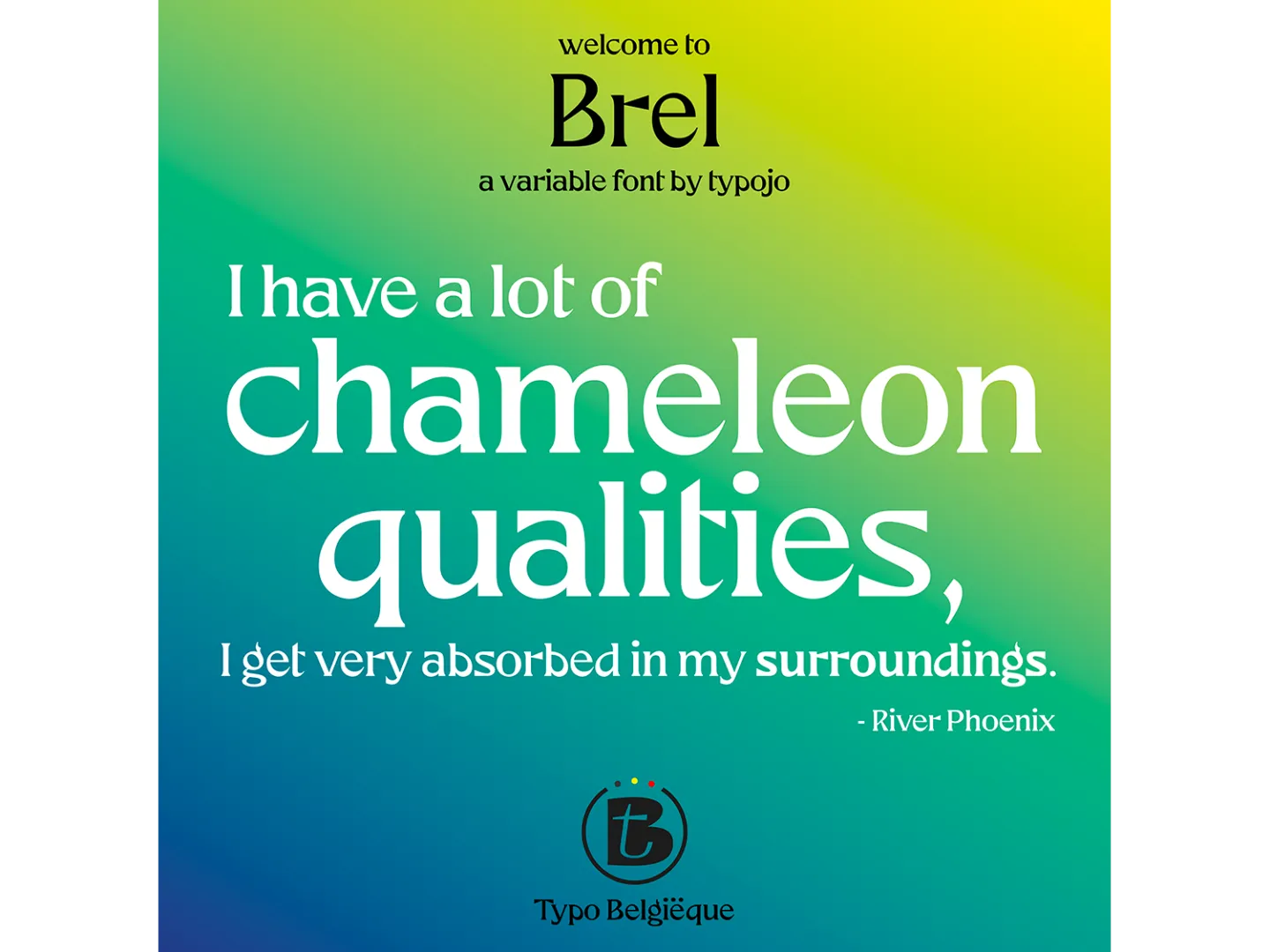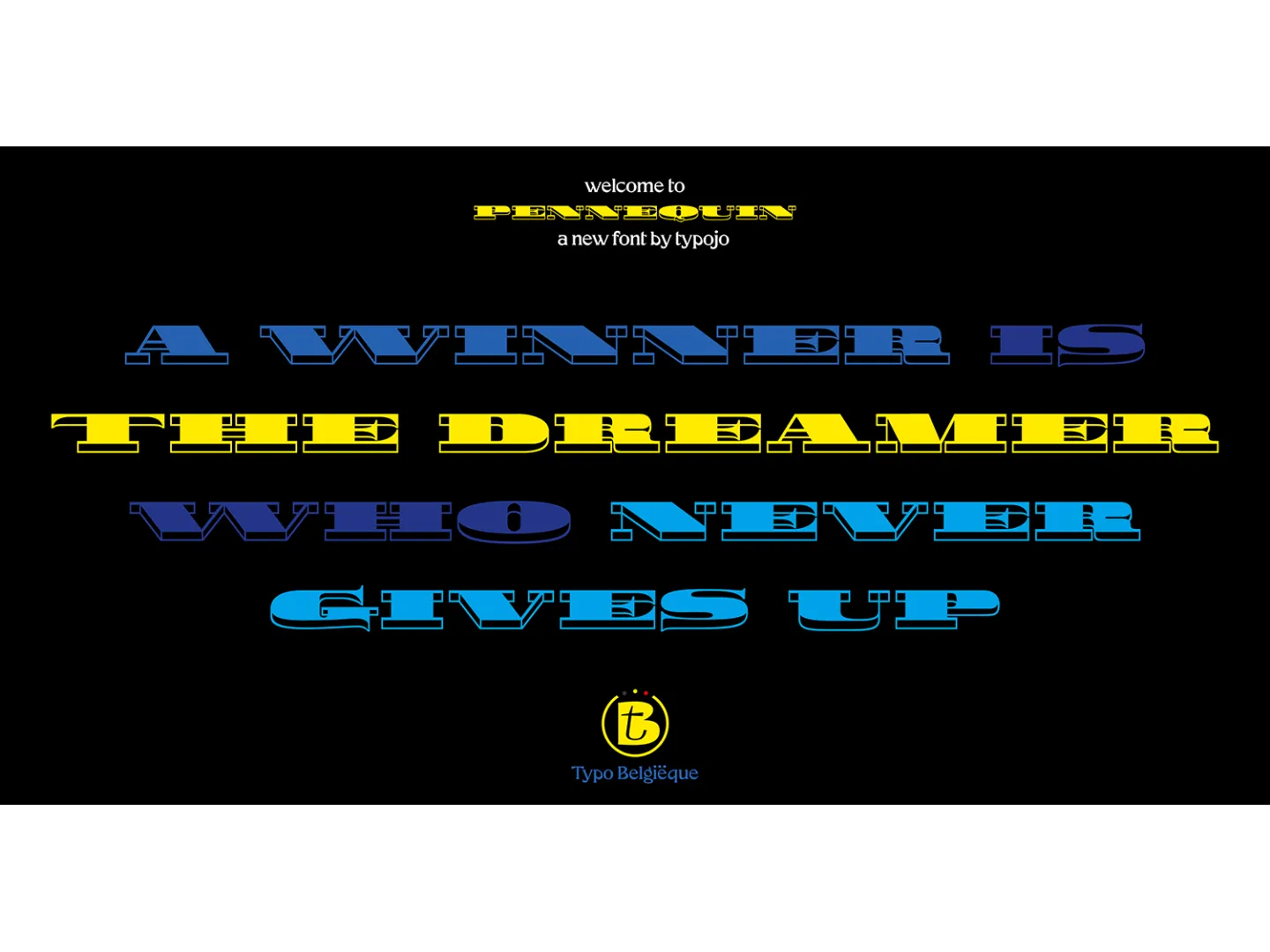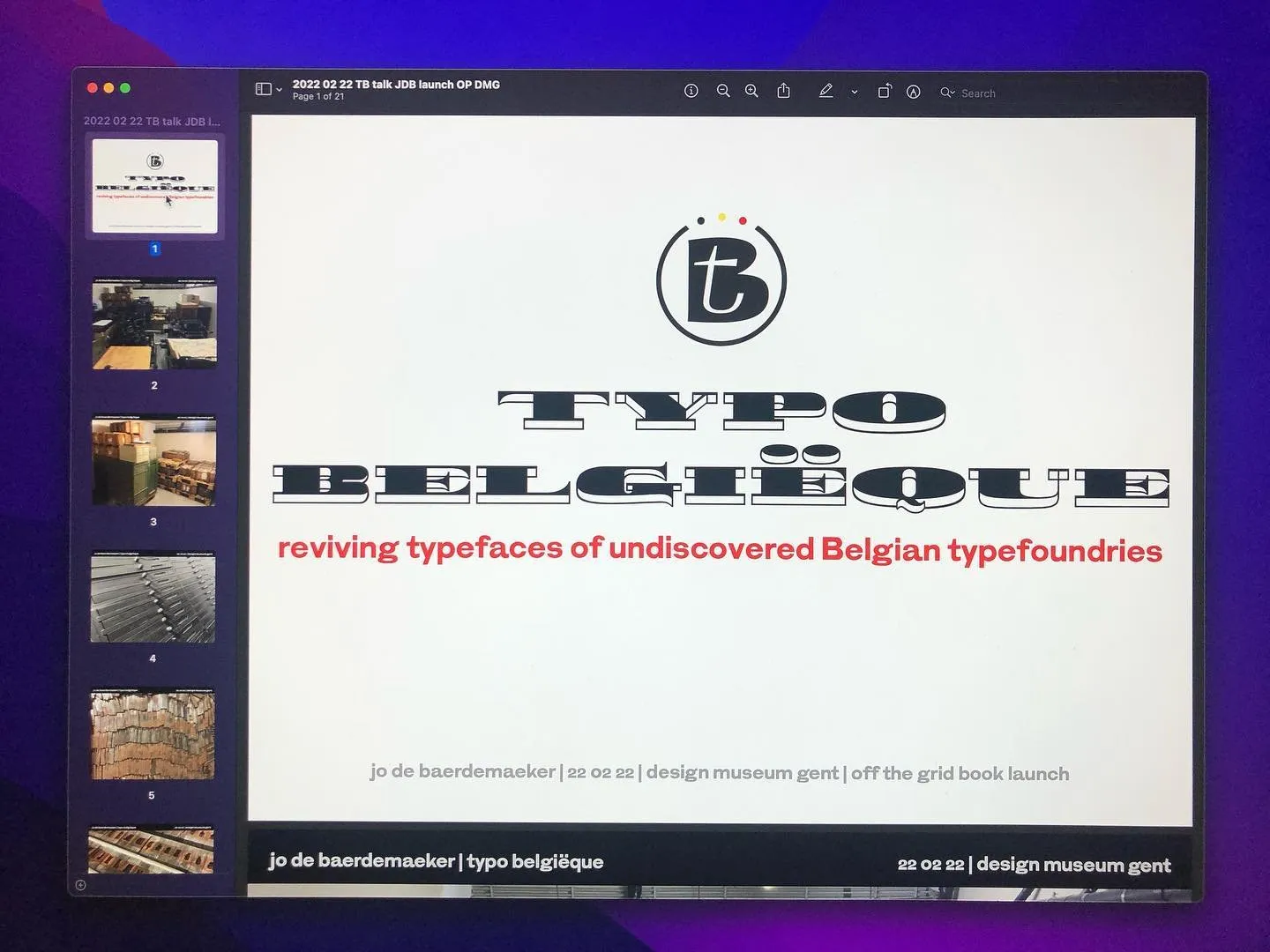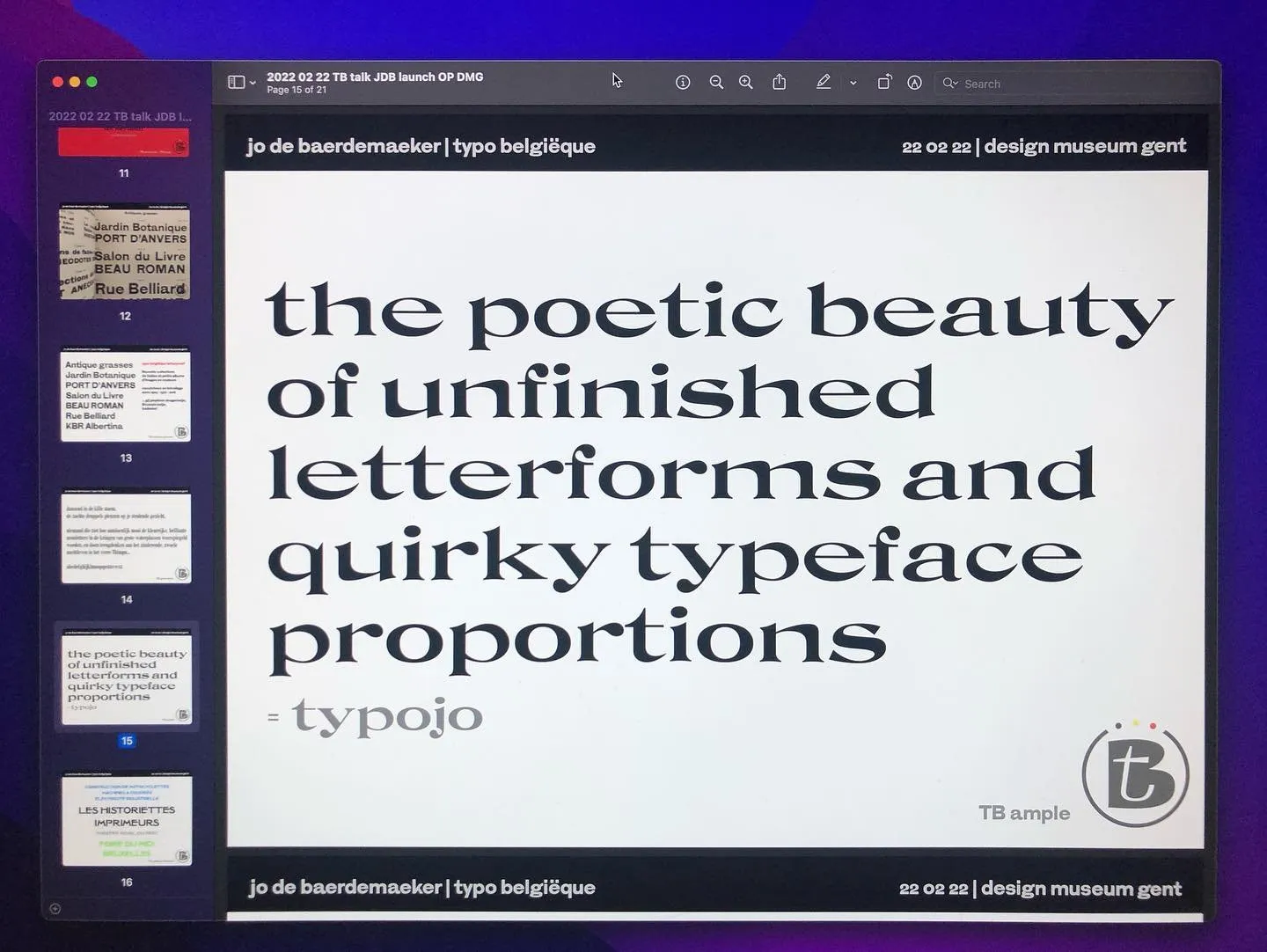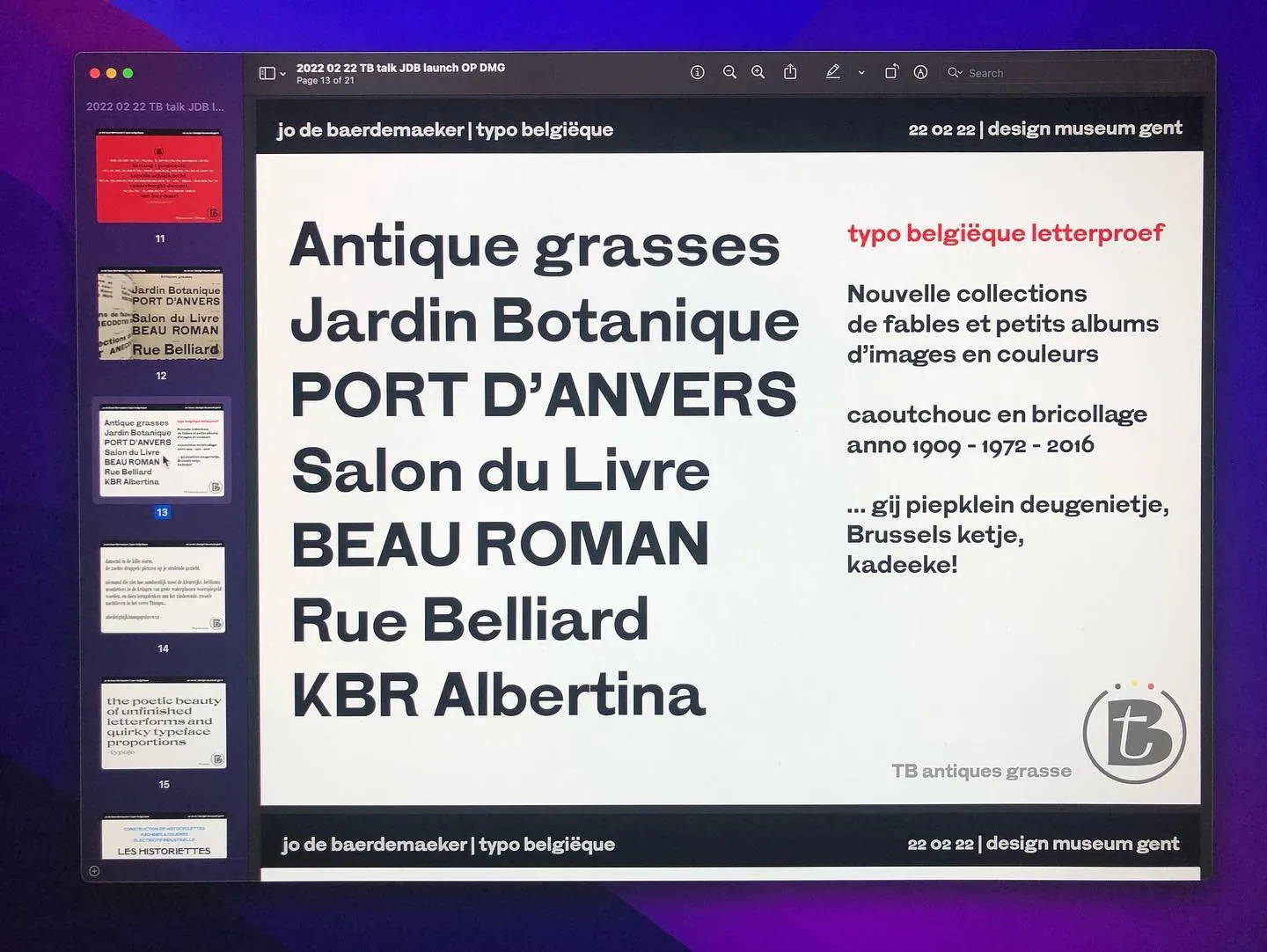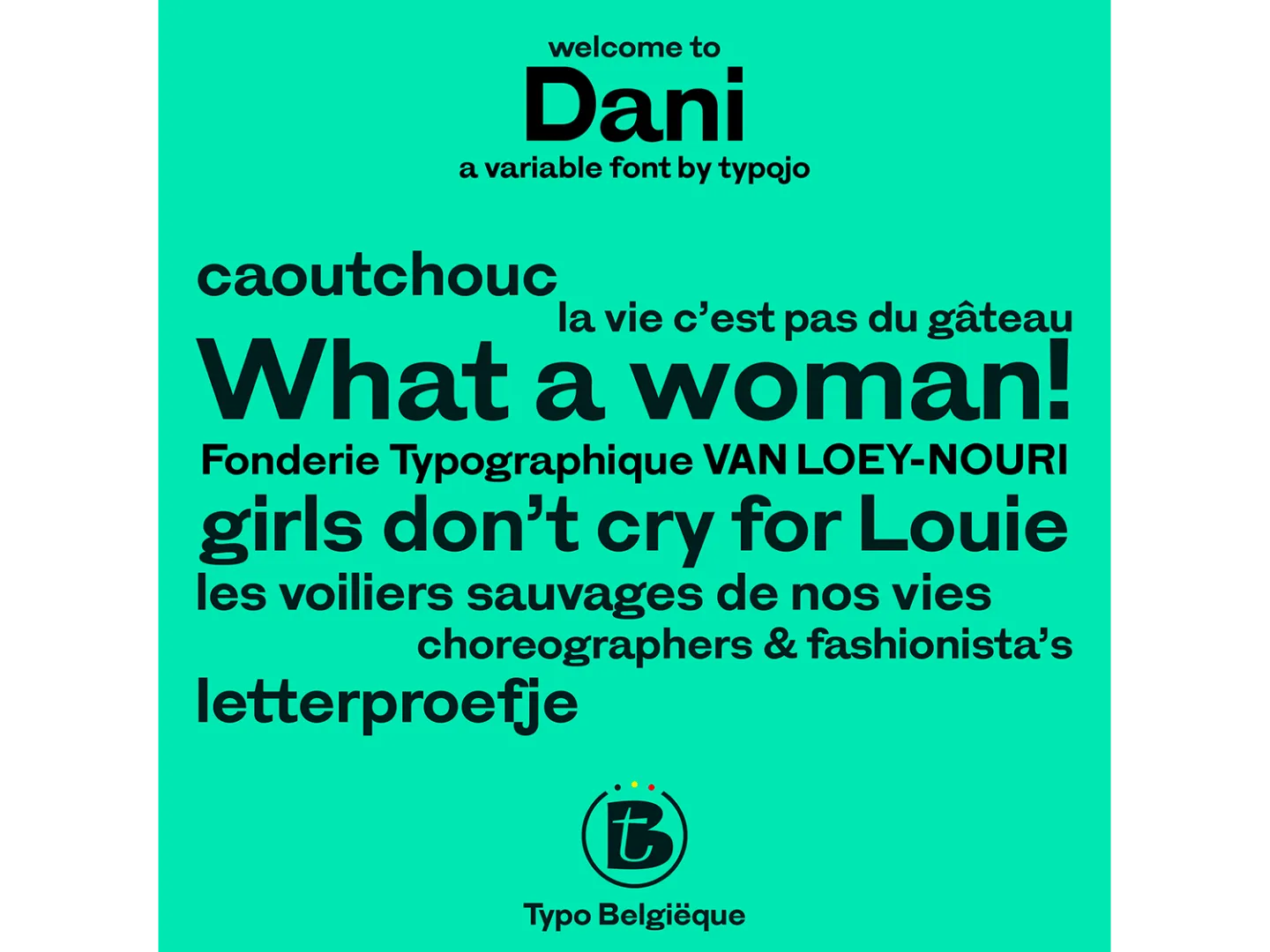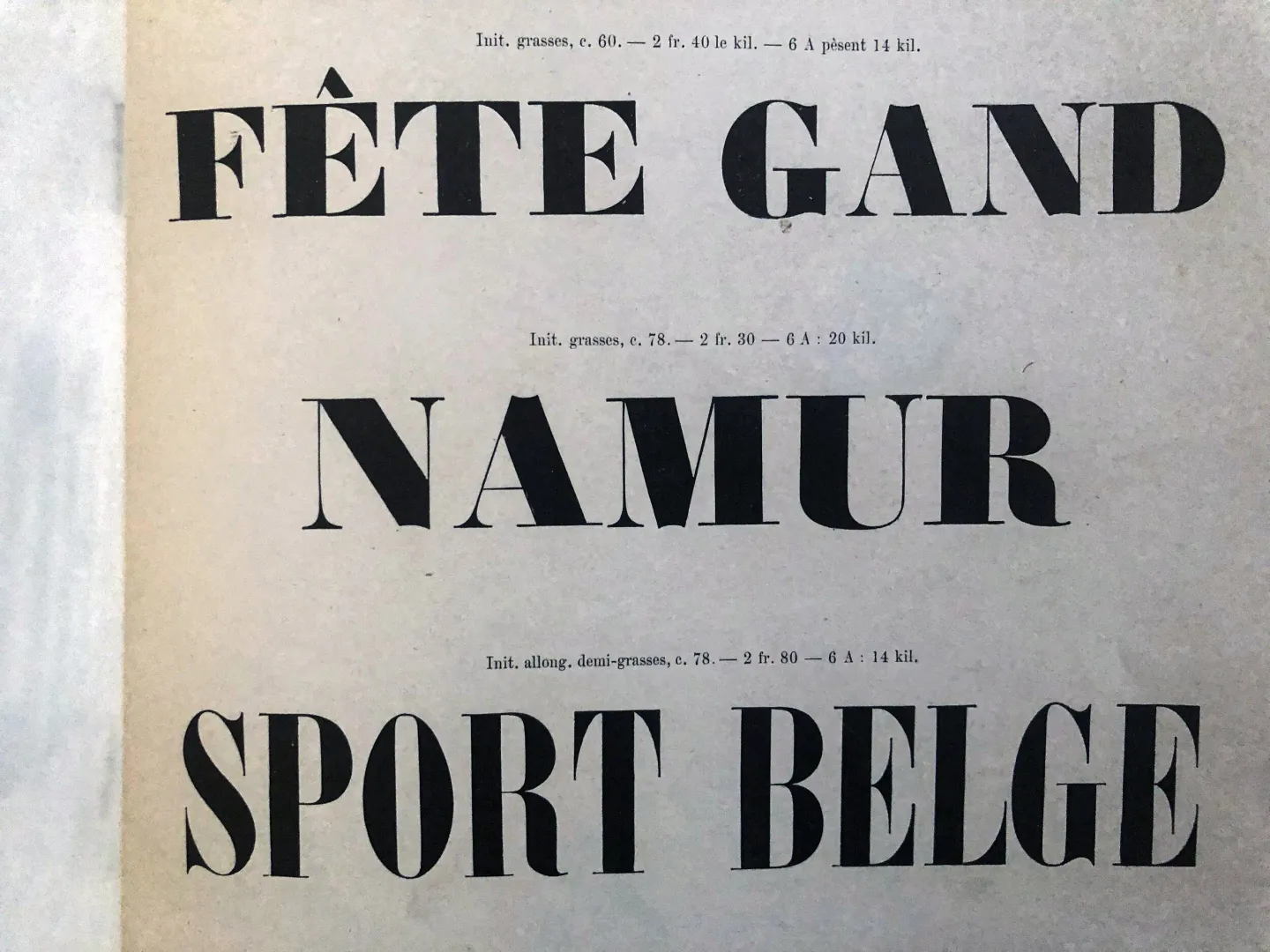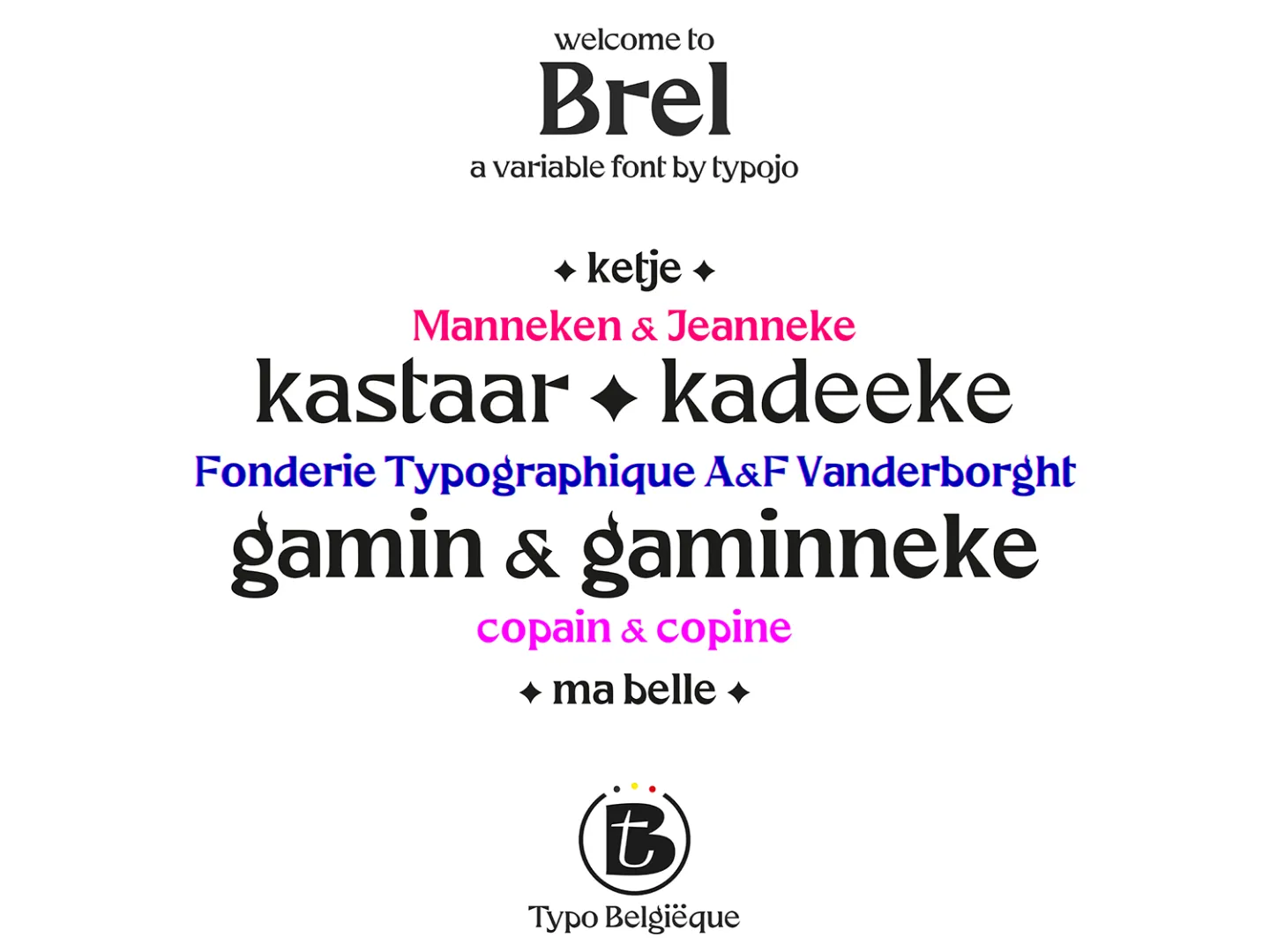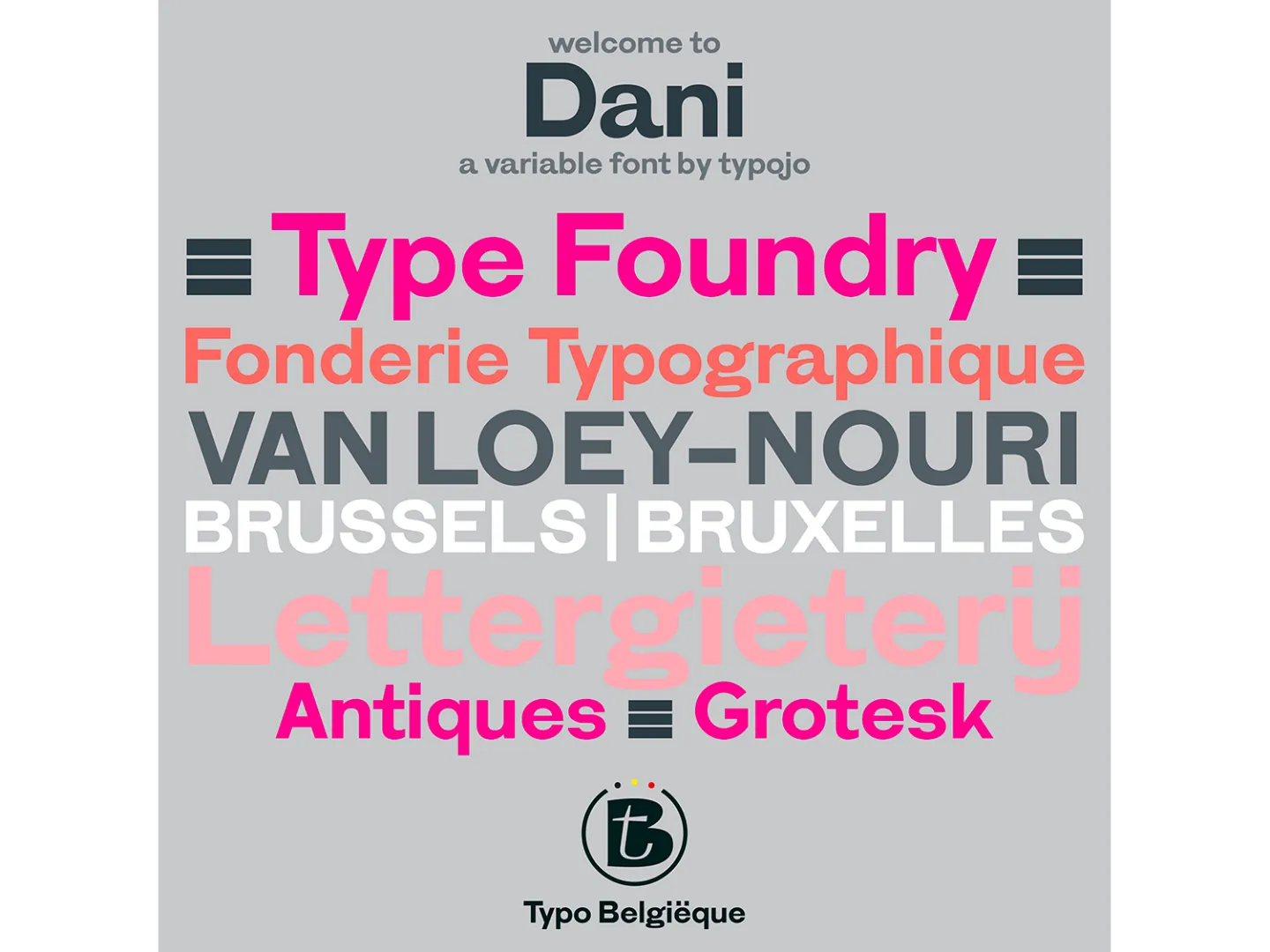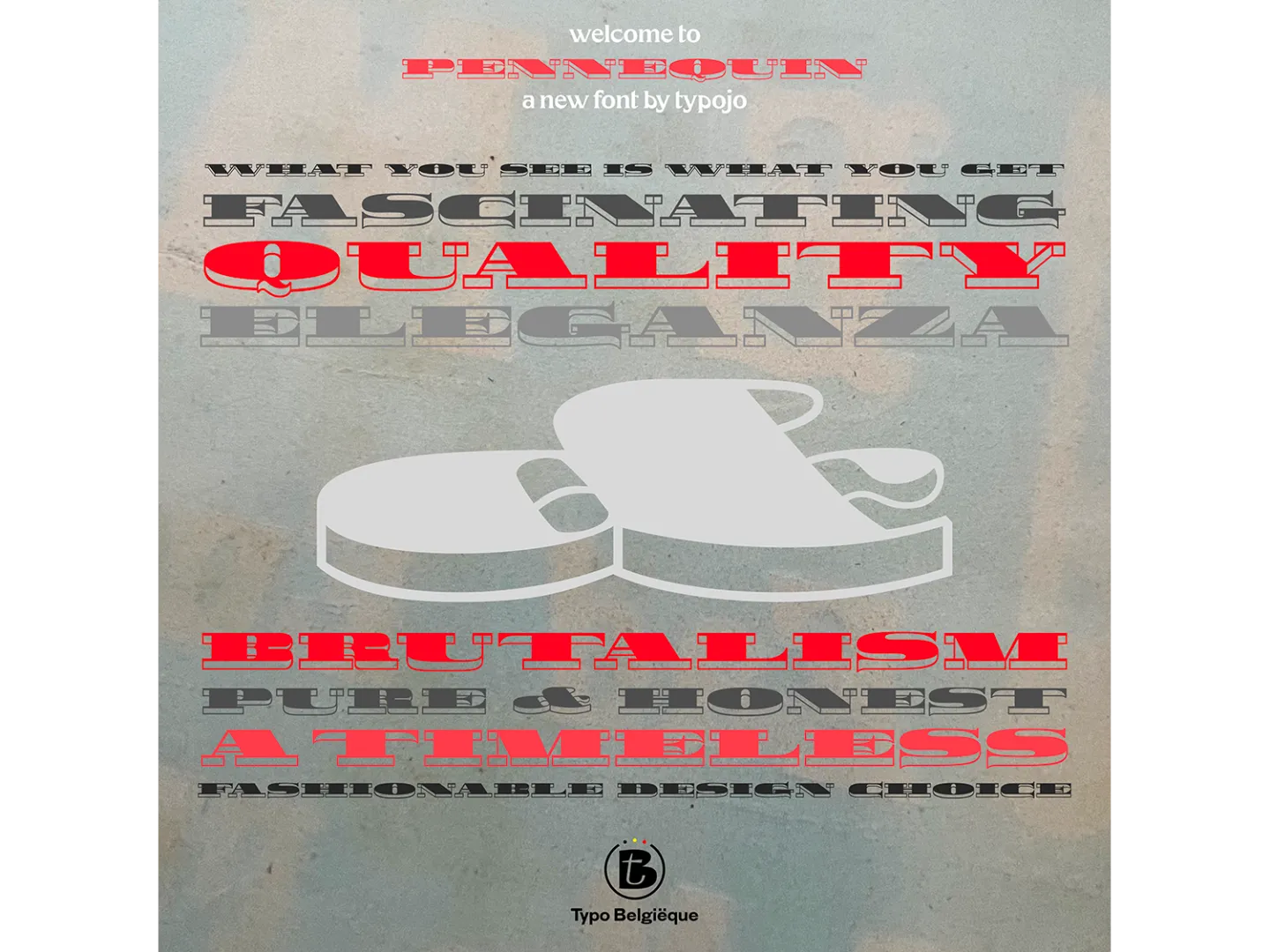
Typo Belgiëque
Belgian typographic design has often been overlooked by styles from surrounding countries. Can we define one specific “Belgian style”, or should we follow claims that it is fragmented, and merely influenced by characteristics of other international typographic styles?
This practice-based research & type design project will shed a light on authentic, traditional, typeface designs and typographic practices which emerged from Belgian regions, and draws on De Baerdemaeker’s ongoing research on tracing the origins and evolution of typography in Belgium.
An introduction to this project was presented during ‘This Is’ (a series of public events which accompany the exhibition ‘Off the Grid’) at Design Museum Gent on 13/02/2020.
The concept behind this project is explained in the article ‘Times New Belgian: de nieuwste leestechnologie met eeuwenoude Belgische letters’ [Times New Belgian: The latest reading technology with centuries-old Belgian letters] in national newspaper de Tijd on February 6, 2021, which you can read here [Dutch only (for now)]:
Typo Belgiëque aims to outline the visual design identity of Belgium in the nineteenth and twentieth century, by undertaking a thorough analysis of recently discovered type material of until now unknown Belgian type foundries, and shed a light on this missing link in the typographic history of Belgium, the Low Countries and Europe.
By studying historical Belgian typeface families, and exploring possibilities to reconstruct a Belgian visual identity via digital font technologies, a new collection of digital fonts will be designed and developed as an important practical design output of Typo Belgiëque. A unique selection of authentic printing types will be used as the source of inspiration and the ultimate goal is to reinvigorate these typefaces as digital computer fonts for contemporary use in publishing and media design.
These new and exclusive font families will be developed following the most recent variable font technologies, to secure a high level of legibility and optimal use for dynamic, responsive web- & screen typography in every form of digital publication.
Currently preparing my new talk and publication entitled: ‘Forgotten [type] Foundries’
updated presentation and recent developments of Typo Belgiëque will be given at ATypI Paris from 9 to 14 May 2023 + launch of new font families.
Delighted to present Typo Belgiëque as a Keynote speaker at the BITS10 Conference in Bangkok on 4 November 2024. Here is a summary of the lecture:
“Type foundries and their branding: the unique impact of branding throughout the history of type design:
In the fast and ever changing environment of visual design, it is key to be creatively original and stand out in the ocean of typographic communication.
In this talk, Jo will take the audience back in time and highlight some case-studies of how historical international type foundries branded themselves through their collections of typefaces and visual imagery of their time. From the start onwards, the type industry has been very competitive, and like today, embracing active trends in art, architecture, music, fashion, lifestyle, entertainment & design, and collaborating with contemporary creative minds and artists was essential in the production of unique typography.
With a special focus on Belgian type foundries of the nineteenth & twentieth century and flash forwards to present-day branding projects that specialise in using type, he aims to illustrate the subtle yet powerful impact of type as a considered visual voice in brand identities.”